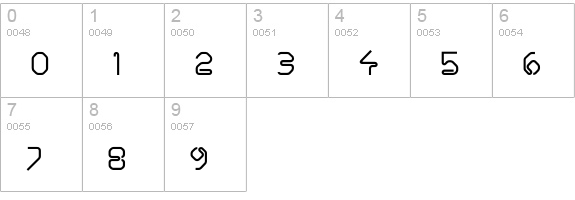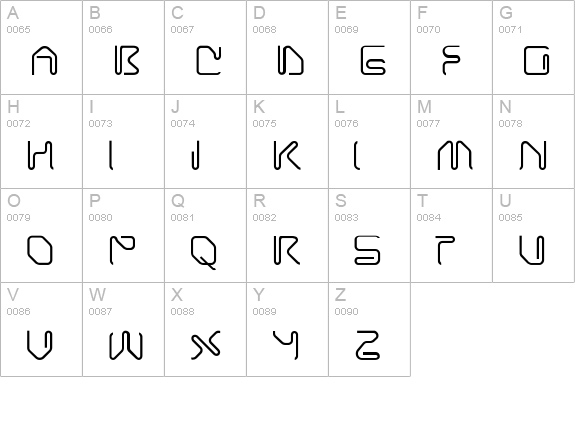
SMCChicago Font Details
Introducing SMCChicago, a captivating and versatile font that effortlessly combines modernity with a hint of retro flair. This typeface is a true gem, crafted with meticulous attention to detail to bring out its unique personality. SMCChicago is designed to make a bold statement, whether used for headlines, logos, posters, or any other creative project. Its clean lines and sharp edges exude confidence and professionalism, making it perfect for businesses, branding, and advertising. What sets SMCChicago apart is its seamless integration of contemporary design elements with a touch of classic elegance. This fusion creates a visually striking font that captures attention and engages the viewer. Its fluid strokes and balanced proportions give it a timeless appeal, making it suitable for a wide range of applications. One of the most remarkable aspects of SMCChicago is that it is freely available to download at FontsMarket.com. This means that you can enjoy the beauty and versatility of this font without any cost. The creators of SMCChicago believe in making exceptional design accessible to all, and this is reflected in their decision to offer it for free. With SMCChicago, you have the power to elevate your designs and make them truly unforgettable. Its versatility allows you to experiment with different styles and layouts, ensuring that your creative vision is fully realized. The possibilities are endless with this font, and the only limit is your imagination. So, why wait? Discover the beauty of SMCChicago and unleash your creativity today. Download this captivating font for free at FontsMarket.com and embark on a design journey that will leave a lasting impression.